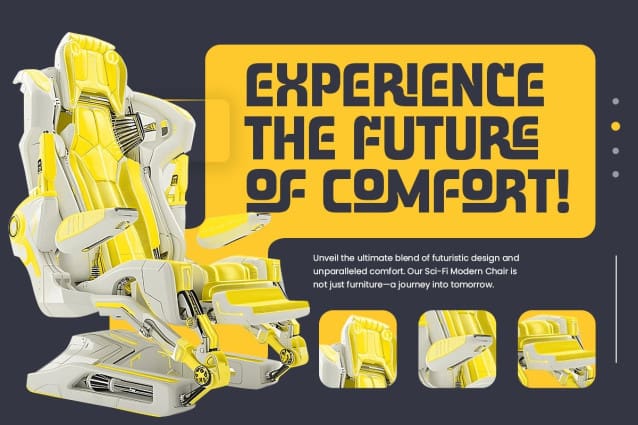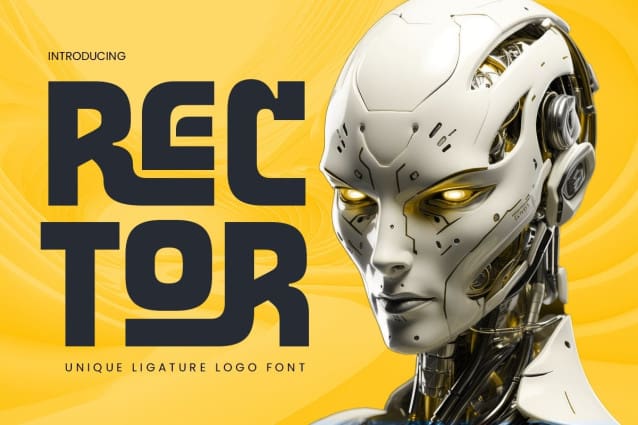
Rector Font
Rector Font is a unique sci-fi futuristic logo font designed to bring innovation and boldness to your projects. Its futuristic ligatures and sleek letters make it ideal for tech brands, gaming logos, or any other project where you want to push the boundaries of modern design. Rector’s clean lines and sci-fi aesthetic give it an edgy look that attracts attention.
Inspired by the future of technology, Rector combines modern design principles with bold sci-fi elements. It’s ideal for creating standout branding in industries like tech, gaming, and entertainment, delivering a sleek, innovative style that makes your logo stand out. Whether for web, print, or digital branding, Rector’s futuristic appeal shines through.
With Rector Font, your designs can embody the future by delivering a bold, sophisticated, and cutting-edge logo experience that will resonate with a modern, tech-savvy audience.